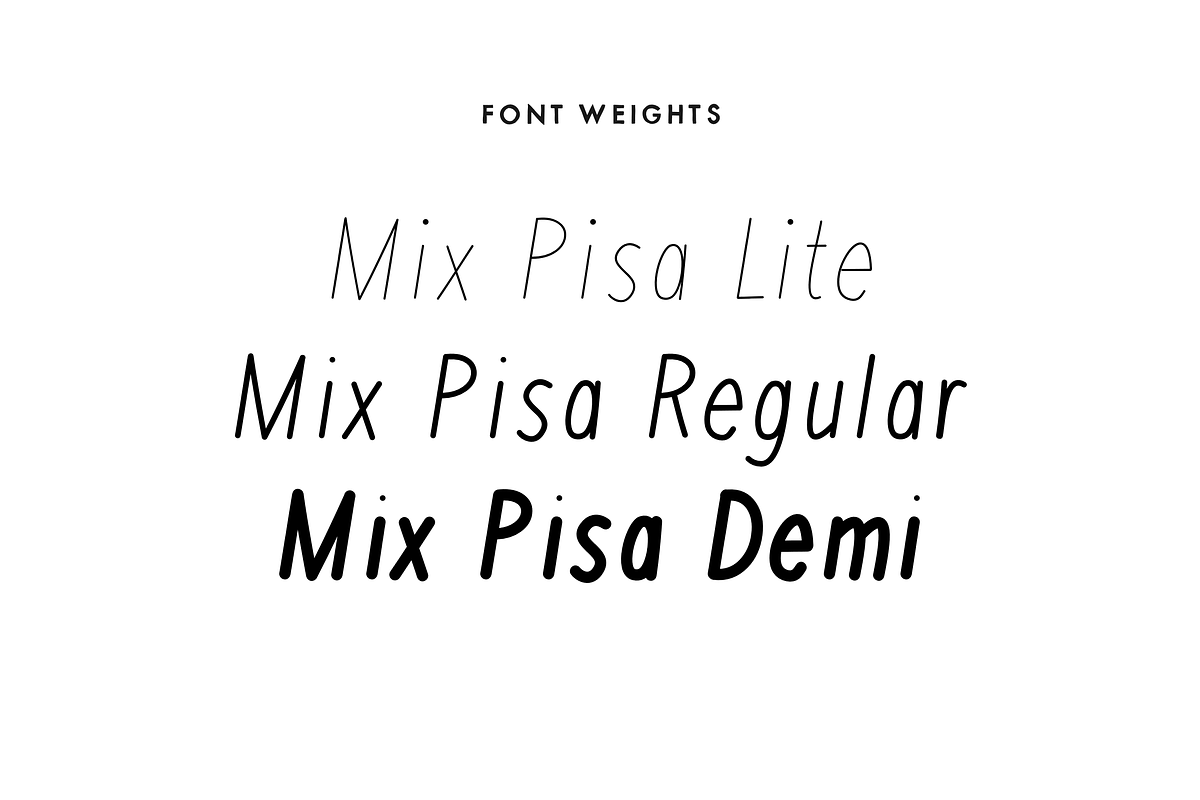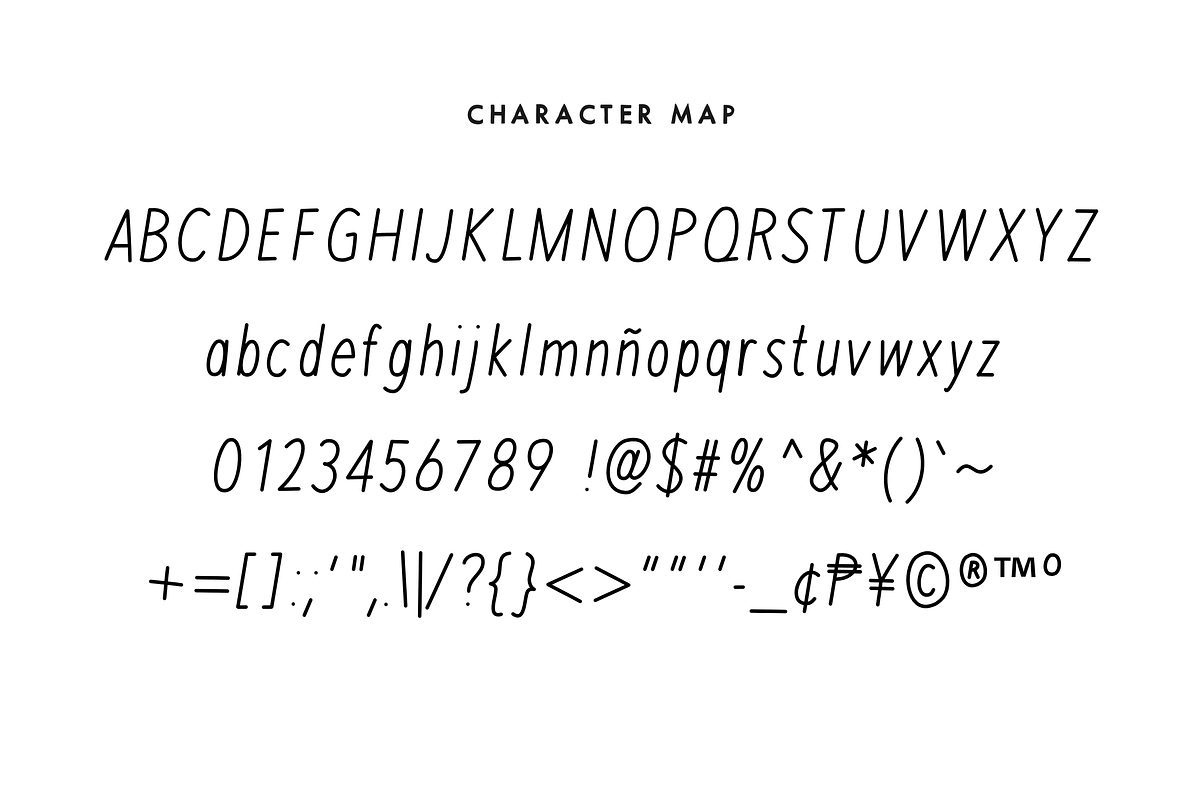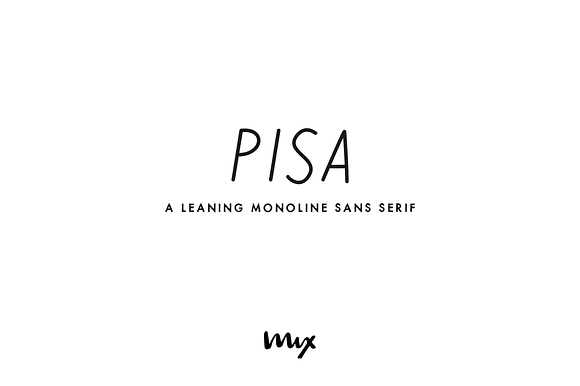
Pisa — A Leaning Monoline Sans Serif
MIX PISA is a unique and elegant font that boasts a sleek monoline design, giving it a modern, minimalist feel. Its leaning letterforms lend a touch of sophistication, making it a great choice for book covers, headlines, brochures, and posters.
With its clean, simple lines and easy-to-read letterforms, MIX PISA is an ideal font for projects that require a high level of readability, such as websites, magazines, and other digital or print materials. Its versatile nature makes it suitable for use in a variety of design contexts, from formal to more relaxed settings. The italic ized style adds a subtle sense of movement to the text, making it even more dynamic.
UPDATED (August 2020) — Now comes in three weights: Lite, Regular and Demi.